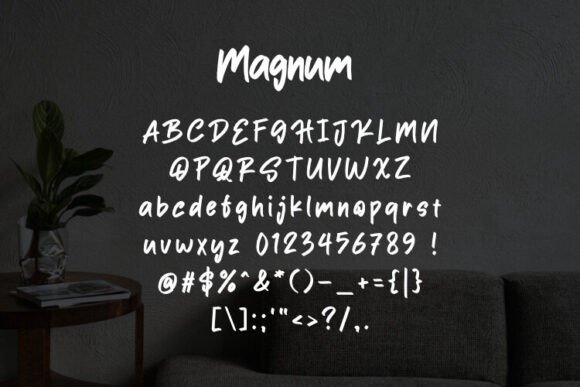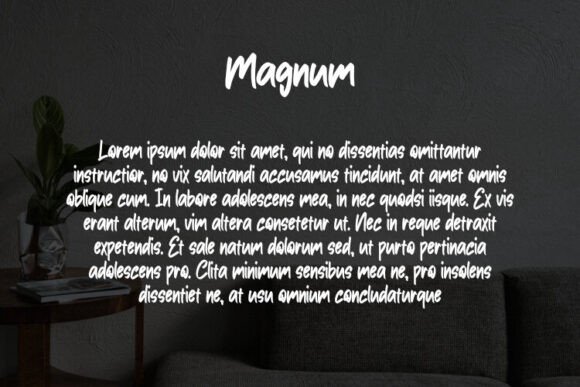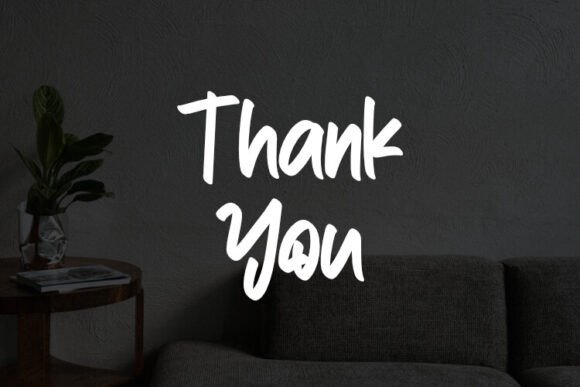
Introduction to Magnum Font
Unveil the essence of your designs with the “Magnum” font.
Specifically crafted for clothing and t-shirt aesthetics, this adaptable font compliments all your creative pursuits seamlessly, becoming an essential item in your designer toolbox Compatible with all software platforms, the “Magnum” font comes in a versatile OTF file, adding a distinct flair to your designs, garments, and other product ventures.
Why Choose Magnum Font?
Magnum Font offers exceptional quality and versatility, making it a valuable addition to your design toolkit. Whether you’re creating for personal projects or commercial use, Magnum Font delivers professional results.